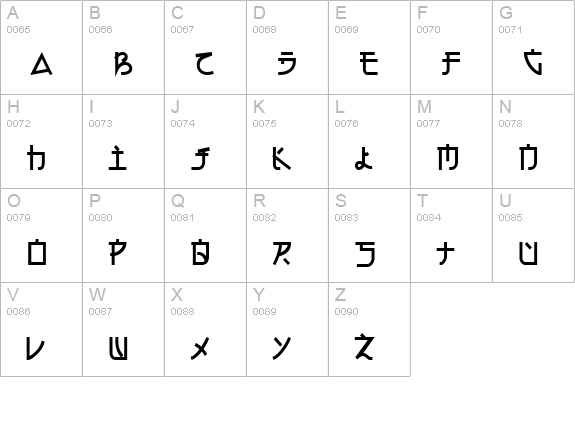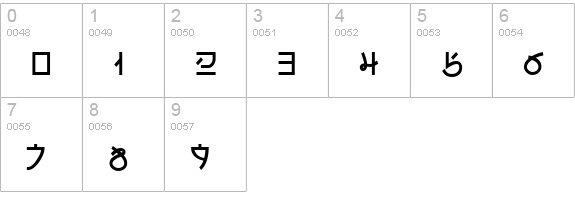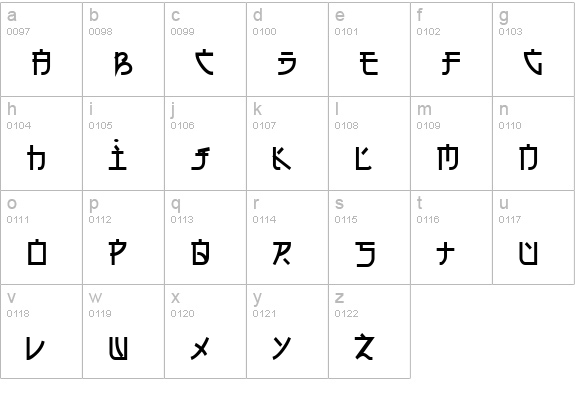
TR Electroharmonix Font Details
TR Electroharmonix font is a dynamic and energetic typeface that exudes a modern and futuristic vibe. With its sharp angles and bold strokes, this font is perfect for creating eye-catching designs that demand attention. The sleek and contemporary look of TR Electroharmonix makes it ideal for projects that require a touch of edginess and sophistication. This font is not only visually striking but also versatile, suitable for a wide range of design applications including logos, headlines, posters, and more. Its clean and polished appearance adds a professional touch to any project, while its unique character sets it apart from more traditional fonts. And the best part? TR Electroharmonix font is freely available to download at FontsMarket.com. So go ahead and add this stylish and captivating font to your collection today!